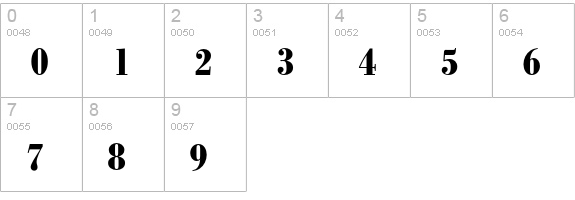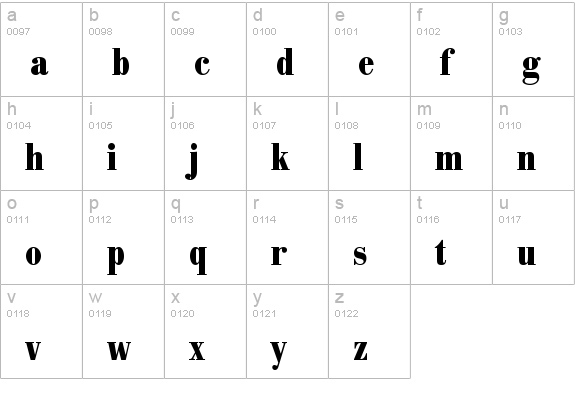
BodoniEF-BoldCond is a stunning and elegant font that exudes sophistication and modernity. With its bold and condensed design, this typeface demands attention and makes a bold statement in any project. The sharp serifs and clean lines give BodoniEF-BoldCond a timeless and classic look that is perfect for a wide range of design applications. What makes BodoniEF-BoldCond even more appealing is that it is available for free download at FontsMarket.com. This means that designers and creatives can easily access this high-quality font without any cost, making it a valuable resource for any project. Whether you're working on branding, advertising, editorial design, or any other creative endeavor, BodoniEF-BoldCond is sure to elevate your work and leave a lasting impression.